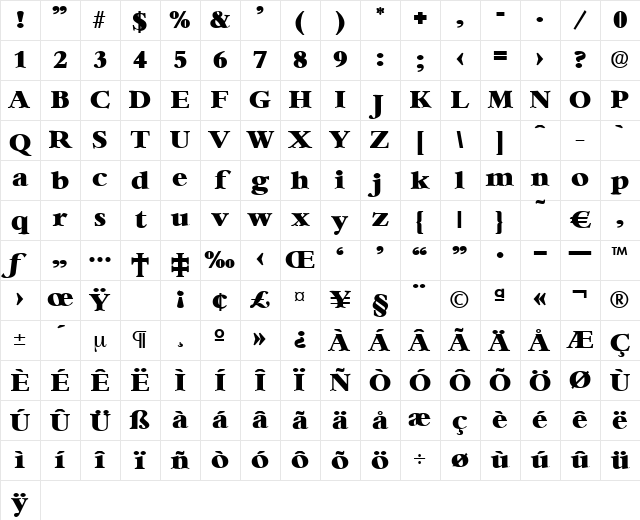
Complete Bernstein-ExtraBold Regular glyph index. Displaying only characters natively supported by Bernstein-ExtraBold Regular font.
Bernstein-ExtraBold is a composed and adaptable typeface that performs quietly and consistently across a wide range of design contexts. Its bold stroke weight gives it real presence on the page.